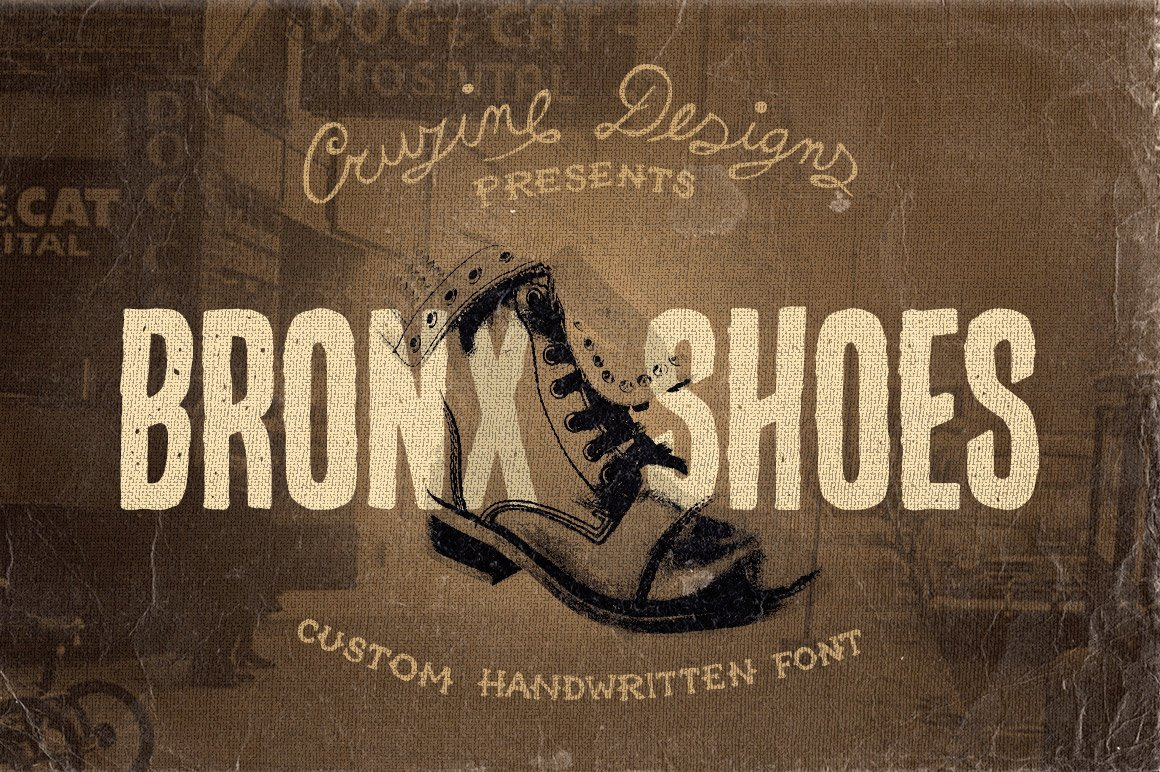
Bronx Shoes Custom Font
Bronx Shoes Custom Font is perfect for urban footwear brands, street style retailers, hip-hop fashion labels, sneaker culture promotions, athletic shoe companies, urban lifestyle marketing, streetwear boutiques, basketball-inspired designs, metropolitan fashion campaigns, and authentic street culture branding.
Bronx Shoes Custom Font creates excitement because it embodies the gritty authenticity and street credibility of urban footwear culture with its bold letterforms and borough-inspired character design. The font's strong presence and street-smart aesthetic instantly convey urban toughness and authentic street style, making any brand appear genuinely connected to street culture and metropolitan fashion. Its carefully crafted urban details and Bronx character create an immediate sense of street authenticity that captivates audiences seeking genuine urban experiences, street fashion, and products that celebrate the powerful culture of urban footwear and street style excellence.
The Bronx Shoes Custom Font family includes multiple weights and styles: Regular, Bold, Black, Ultra Black, Light, Medium, Italic, Condensed, Extended, and Street versions. Each variant maintains the font's signature urban character while offering different levels of street intensity and metropolitan styling suitable for various footwear and street fashion applications.
This powerful typeface brings the authentic spirit of Bronx street culture into contemporary urban fashion design with remarkable street credibility and metropolitan appeal. Bronx Shoes Custom Font Free Download provides footwear brands and street fashion companies with access to premium urban-inspired typography that embodies the essence of street culture and authentic urban style. The font's street design and Bronx authenticity make it ideal for businesses seeking to establish meaningful connections with urban fashion enthusiasts and street culture communities who appreciate authentic street style, urban craftsmanship, and the transformative power of genuine street fashion culture. Whether you're creating branding for sneaker companies, designing materials for streetwear retailers, developing packaging for urban footwear products, or producing marketing content for street fashion venues, this font delivers the authentic Bronx atmosphere that resonates with audiences seeking genuine street experiences, urban authenticity, and the cultural connection that defines true street fashion excellence. Its versatile design ensures excellent performance across both bold street signage and dynamic digital fashion platforms while maintaining the character of authentic Bronx street typography. The font excels in applications requiring street credibility and urban appeal. Footwear industry professionals appreciate its ability to convey Bronx authenticity while remaining highly functional for various street fashion communications and urban promotional materials. The comprehensive character set includes urban symbols and extensive international language support, making it perfect for global streetwear brands and international urban fashion organizations seeking to communicate authentic Bronx street culture, metropolitan style values, and genuine urban fashion excellence to diverse worldwide audiences who embrace street culture, appreciate urban authenticity, and seek the powerful connection that comes from genuine street fashion and the rich traditions of Bronx street style that defines urban fashion credibility and metropolitan street culture excellence.